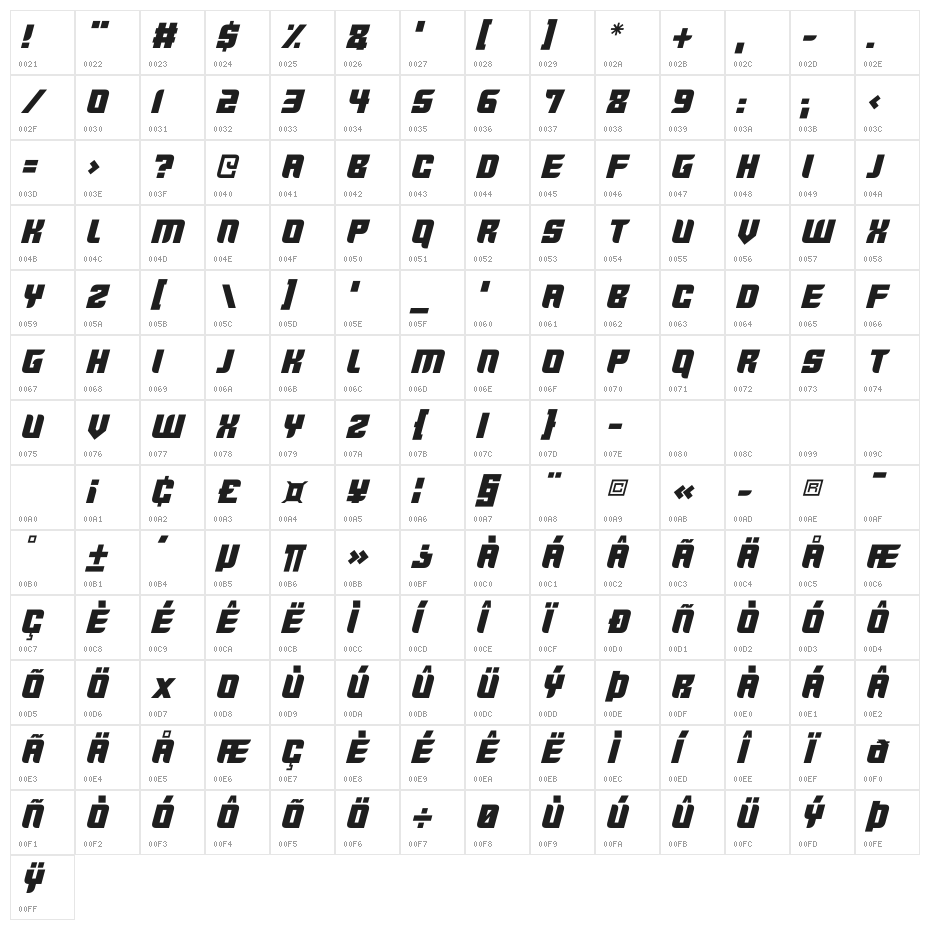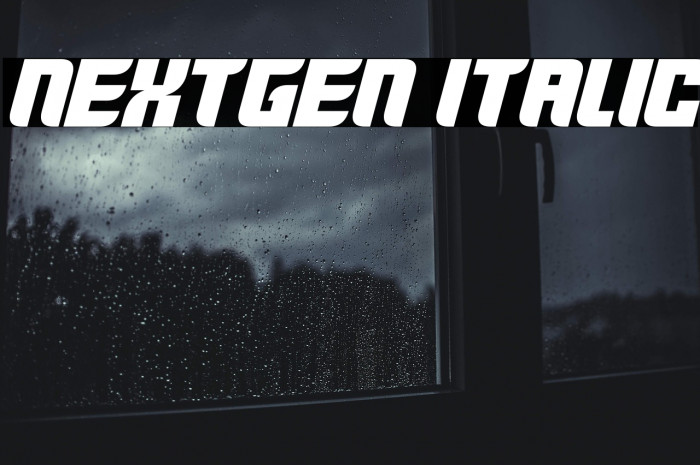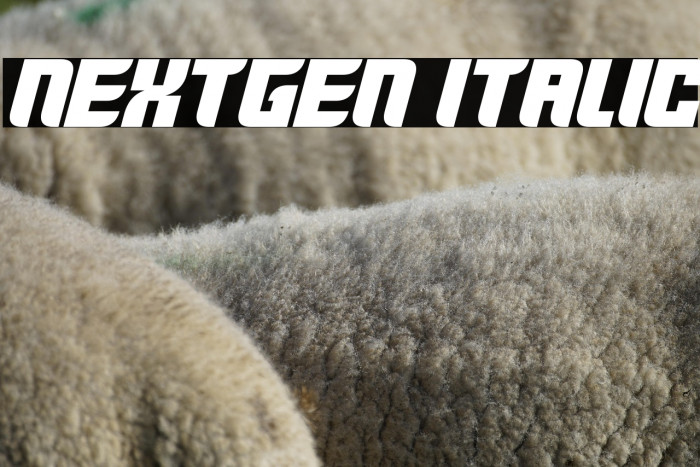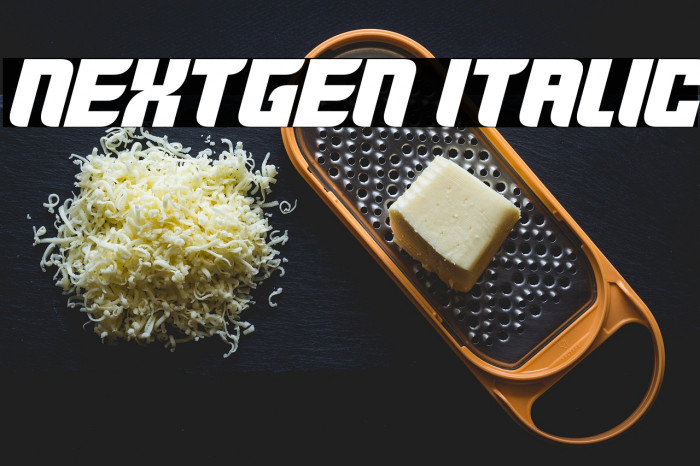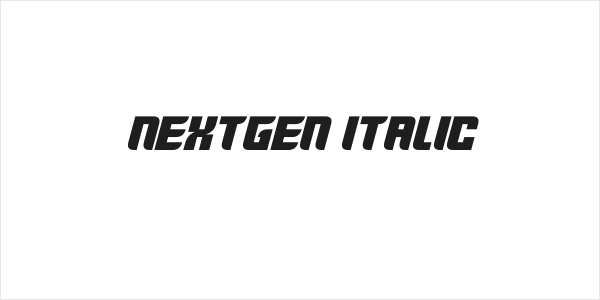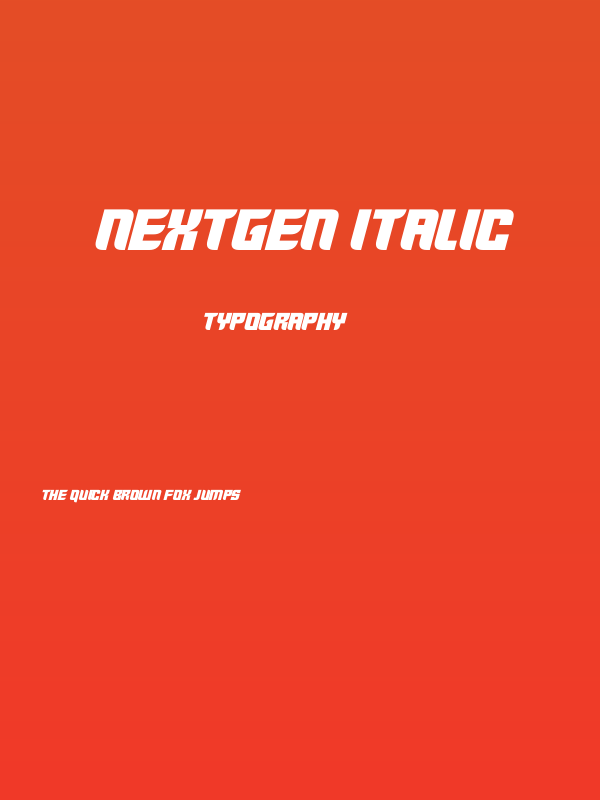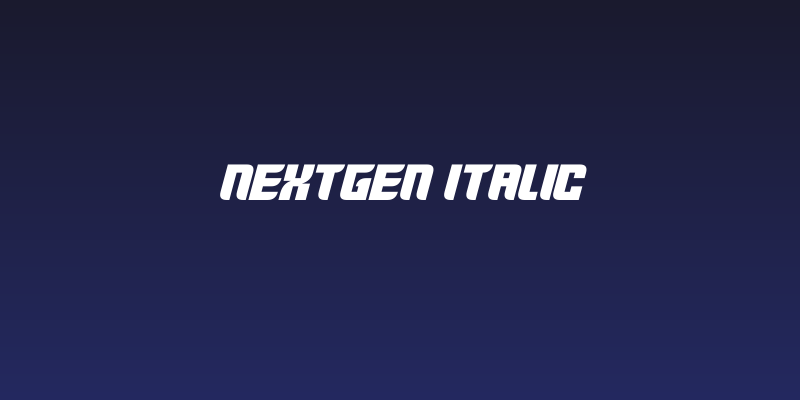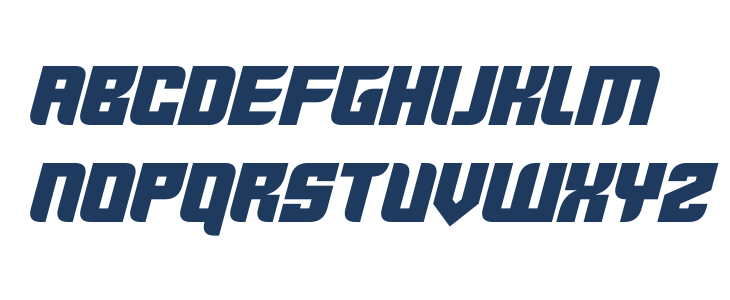
Nextgen Italic Font
Nextgen Italic Description
This font features a bold and dynamic design with a strong italic slant, giving it a sense of motion and energy. The characters are robust and angular, with a futuristic and modern aesthetic. The uppercase and lowercase letters maintain a consistent style, with sharp edges and a uniform thickness that enhances readability. The numbers and special characters follow the same design principles, ensuring a cohesive look across all elements. This font is ideal for projects that require a bold statement and a contemporary feel.
| Proposed Projects | Ideal for sports branding, tech-related designs, futuristic posters, and dynamic advertising campaigns. |